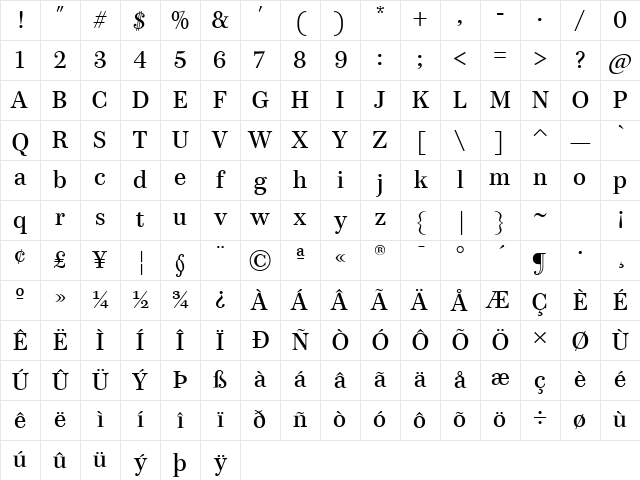
Complete Paperback 48 TT Regular glyph index. Displaying only characters natively supported by Paperback 48 TT Regular font.
Paperback 48 TT is a composed and adaptable typeface that performs quietly and consistently across a wide range of design contexts.